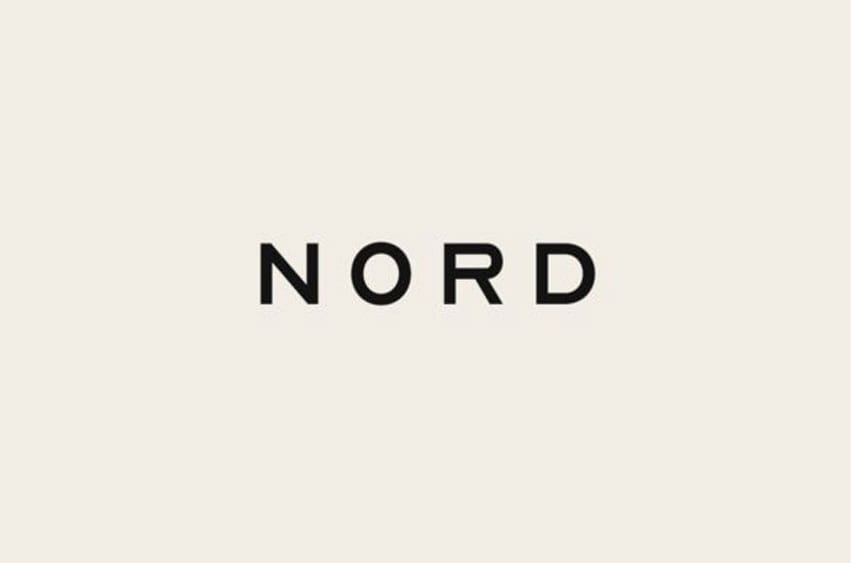
Nord Font is a minimal, yet modern display font.
Suitable to a wide variety of designs due to its neat and simple style, this font has the potential to become your favorite go-to font, no matter the occasion!